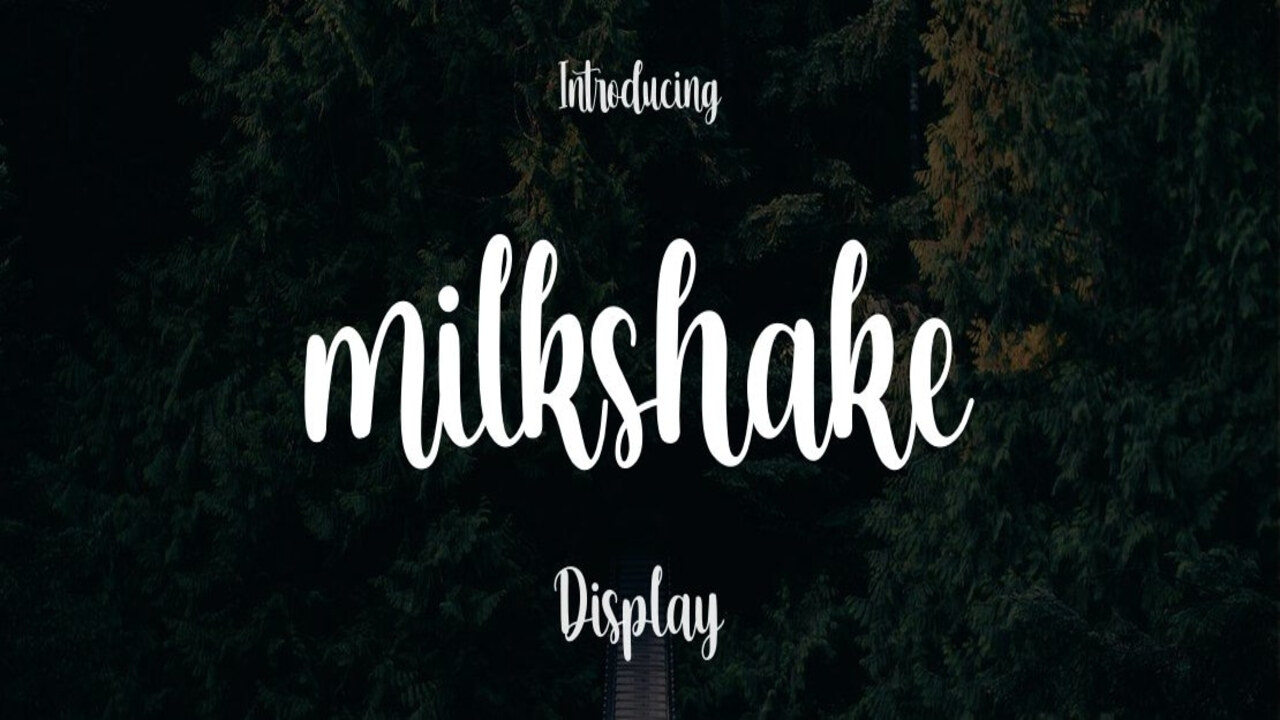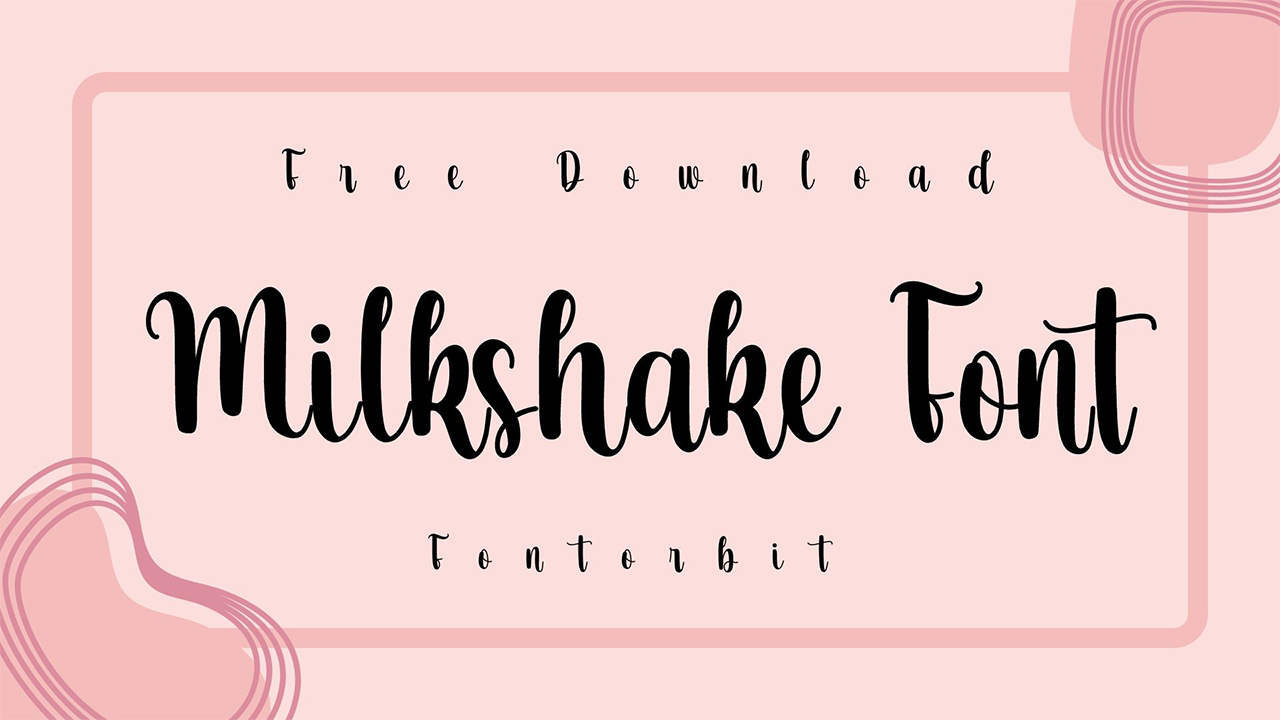
Milkshake Font is a stylish and elegant calligraphy typeface created by Laura Worthington and released in 2014. Known for its distinctive and fluid handwritten charm, Milkshake Font is perfect for a variety of design applications.
Font family Milkshake: subfamily is Regular. It encompasses uppercase and lowercase letters, punctuation, digits, and special characters. Its design supports multiple languages, making it versatile for various projects.
The primary style is Regular, offering elegant calligraphy with smooth, flowing lines. Some feature playful, dotted details, and some come up with a striped design for a unique visual effect. There are also simplified versions with classic script elements.
- Milkshake Regular Font
- Milkshake Plain Font
- Milkshake Spots Font
- Milkshake Lines Font
Milkshake Font is ideal for enhancing diverse design projects with its sophisticated, handwritten style. It is well-suited for creating eye-catching wedding invitations, stylish social media posts, elegant advertisements, product packaging, and bespoke stationery.
- Labels
- Stationery
- Photography Watermarks
- Wall Display
- Wedding Invitations
- Social Media
- Advertisements
- Product Packaging
Milkshake Font offers a perfect blend of elegance and versatility. Its sophisticated script style enhances various design projects, from invitations to branding materials. For a harmonious design approach, pair Milkshake Font with clean, modern sans-serifs or complementary calligraphy styles.
1.What Are The Popular Uses Of The Milkshake Font?
Milkshake is popular for wedding invitations, social media graphics, advertisements, product packaging, stationery, and wall art due to its elegant, handwritten style.
4.What Is The Font Size Range For The Milkshake Font?
Milkshake Font works well in various sizes, typically from 12pt for text to 100pt or more for headlines and logos.
5.How To Create A Logo Using The Milkshake Font?
Design your logo using Milkshake’s script in vector graphic software like Adobe Illustrator, combining it with other elements for a unique and stylish result.